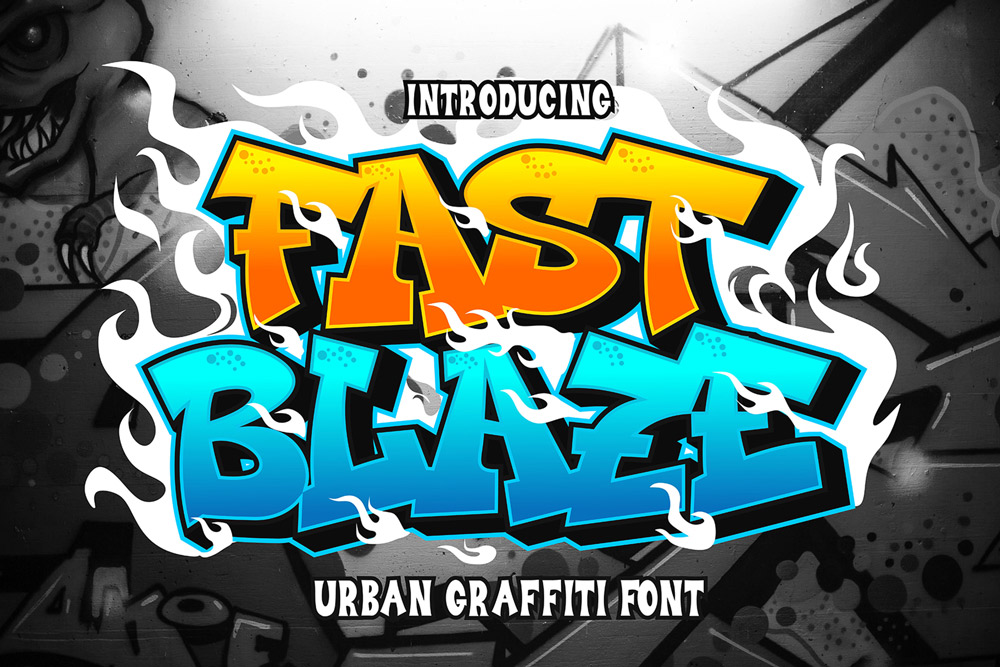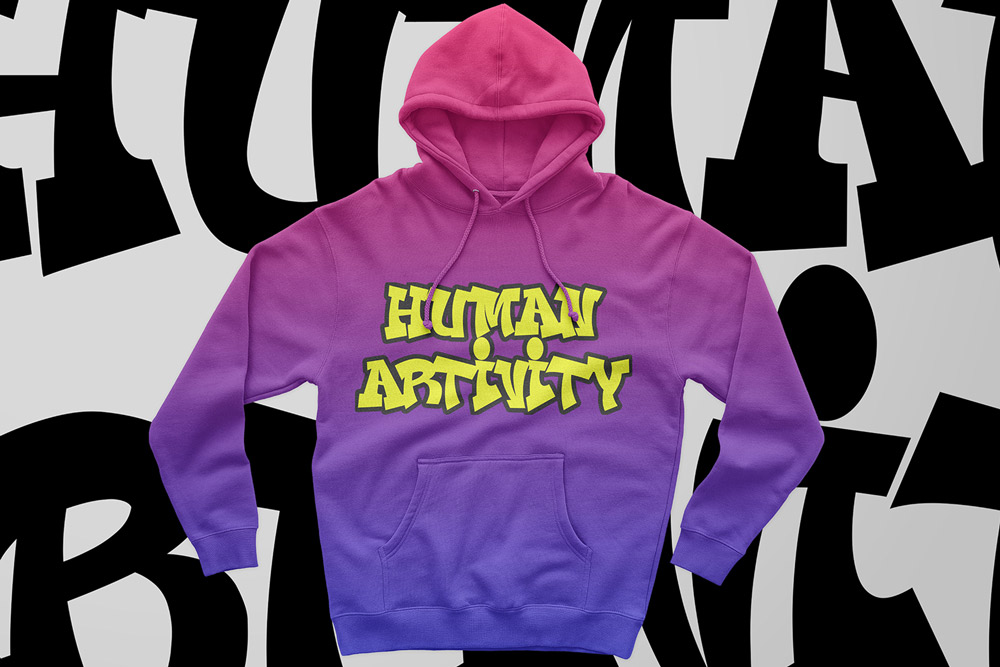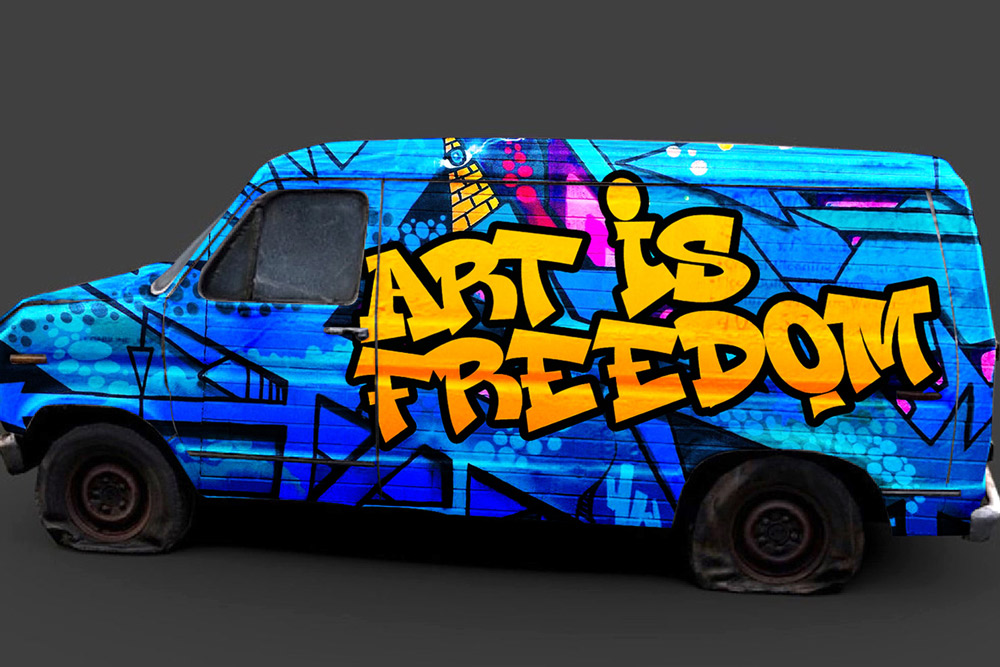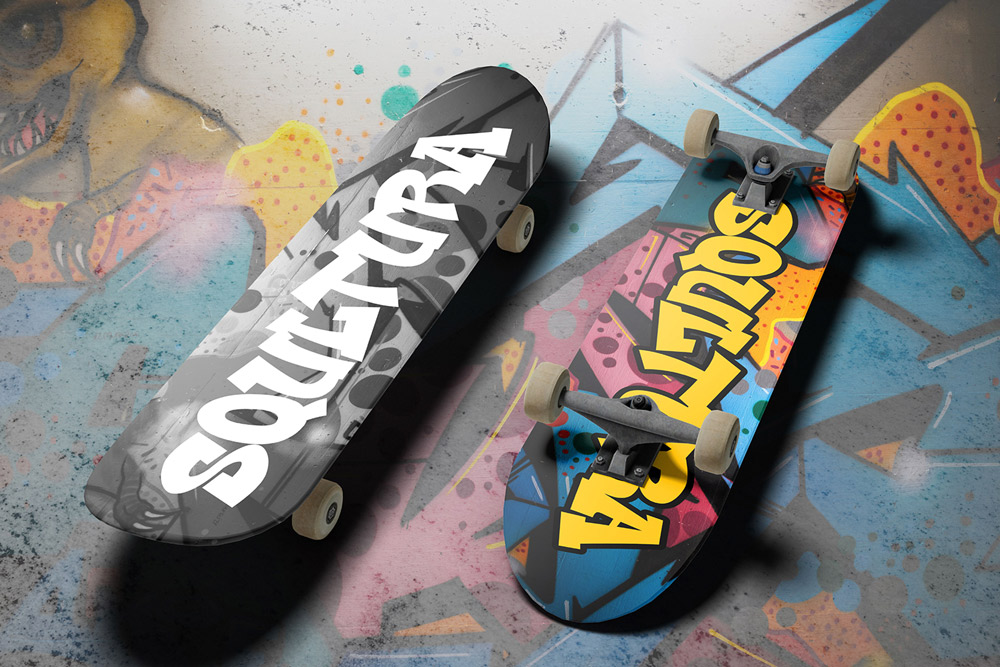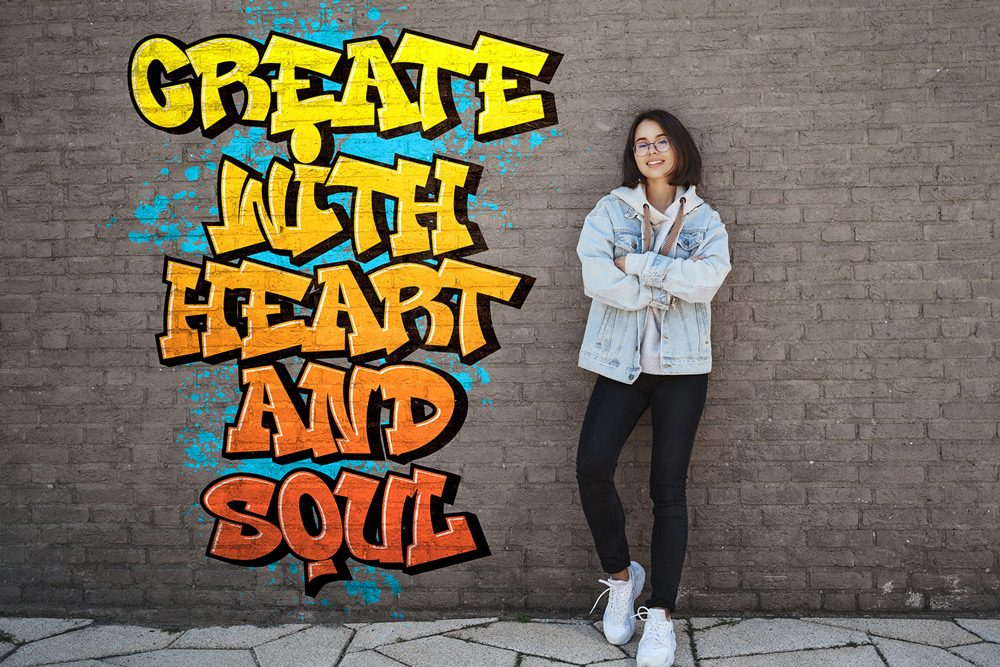
Fast Blaze – Amazing and Dynamic Graffiti Font
Fast Blaze is a bold and energetic graffiti font designed to bring speed, motion, and urban attitude into your typography. Inspired by fast-paced street tagging culture, this dynamic graffiti font delivers powerful letterforms filled with movement and personality. Whether you’re designing streetwear branding, music visuals, posters, or digital graphics, Fast Blaze graffiti font creates a striking visual impact that instantly captures attention.
This urban graffiti font combines aggressive flow with clean readability, making it perfect for modern designers who want typography that feels alive and expressive. With its sharp energy and authentic street-inspired style, Fast Blaze transforms ordinary text into unforgettable urban visuals.
A Dynamic Graffiti Font Built for Speed and Impact
Fast Blaze graffiti font is created to reflect motion and urban energy. Every character is designed with flowing curves and dynamic structure, giving this graffiti font a sense of speed and movement. Inspired by real street lettering techniques, this dynamic graffiti font feels natural, raw, and full of personality.
Unlike static typography, Fast Blaze creates visual momentum in every composition. This makes it an excellent urban graffiti font for projects that need strong energy and bold expression.
Bold Urban Lettering with Modern Style
The defining characteristic of Fast Blaze graffiti font is its fast-moving visual rhythm. This graffiti display font uses exaggerated strokes and energetic shapes to create typography that feels powerful and alive.
Because of its bold structure, this urban graffiti font remains highly readable while still maintaining an expressive street aesthetic. It works perfectly for branding, merchandise, posters, and social media content that require strong visual identity.
This dynamic graffiti font also adapts beautifully across modern design trends, making it suitable for both digital and print media.
Complete Character Set & Typography Features
Fast Blaze – Amazing and Dynamic Graffiti Font includes all essential features for professional design projects.
Uppercase Characters
Bold and expressive uppercase letters designed with authentic graffiti font style for maximum impact.
Multilingual Support
Supports multiple languages, making this graffiti font suitable for international branding and global audiences.
Numbers & Punctuation
Includes a complete set of numbers and punctuation for flexible typography applications using this urban graffiti font.
- Bold and energetic dynamic graffiti font design
- Authentic urban-inspired lettering
- Strong movement and visual rhythm
- High readability for display typography
- Perfect for streetwear and urban branding
- Works across digital and print platforms
- Modern style inspired by real graffiti culture
Why Designers Love Fast Blaze
Designers love Fast Blaze graffiti font because it captures energy and movement in a way that feels authentic and modern. This dynamic graffiti font creates visually engaging typography that instantly attracts attention.
Another reason creators choose this urban graffiti font is its versatility. It works perfectly for logos, posters, album covers, and social media graphics while maintaining strong readability. This flexibility makes Fast Blaze a reliable graffiti display font for a wide range of creative projects.
The fast-flowing style also gives this graffiti font a unique personality. It feels active and expressive without becoming chaotic, making it ideal for modern branding and urban design trends.
Perfect For Creative Projects
Fast Blaze graffiti font is ideal for:
- Streetwear branding
- Graffiti posters and flyers
- Music album covers
- Social media graphics
- Urban logo design
- Merchandise and apparel
If you’re searching for a dynamic graffiti font that combines speed, boldness, and authentic street energy, Fast Blaze is the perfect choice.
Pairing Fast Blaze graffiti font with a dripping urban style creates a strong contrast between dynamic movement and raw textures, resulting in a powerful graffiti font combination.
If you want a dynamic graffiti font that delivers movement, personality, and authentic urban style, Fast Blaze is your ultimate choice. Elevate your designs, energize your typography, and make every project unforgettable with a graffiti font built for modern creators.